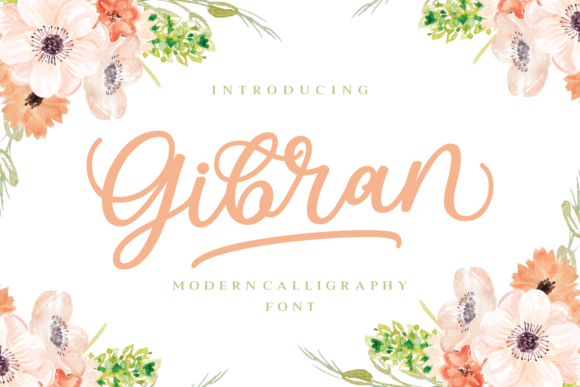
Welcome, typographers and design enthusiasts! Prepare to be captivated by the exquisite charm of "Gibran", a modern calligraphy font that will elevate your creations to new heights. Gracefully designed by Keithzo (7NTypes), Gibran exudes a captivating combination of elegance and readability, making it the perfect choice for adding a sophisticated touch to your projects.
Unlike ordinary fonts, Gibran's meticulously crafted letters possess a captivating rhythm that dances across the page, demanding attention and igniting inspiration. Its delicate curves and subtle flourishes evoke a sense of timeless beauty, while its clean lines ensure readability even at smaller sizes.
But Gibran's allure extends beyond its aesthetic appeal. This font is a versatile chameleon, effortlessly adapting to a myriad of design styles. Whether you seek to craft elegant invitations, design captivating social media graphics, or create stunning Cricut projects, Gibran's versatility will empower you to express your creativity in limitless ways.
One of Gibran's most captivating features is its enchanting swashes, delicate embellishments that add a touch of feminine flair to your designs. These swashes gracefully extend from certain letters, creating an intricate and eye-catching effect that will leave a lasting impression.
With Gibran, you'll not only enhance the visual appeal of your projects but also evoke emotions and create connections. Its elegant lines convey a sense of sophistication and grace, while its playful swashes inject a touch of whimsy and charm. Whether you're designing for personal or professional purposes, Gibran's ability to captivate and inspire will leave a lasting impact on your audience.
So, embrace the beauty of Gibran and unlock the endless possibilities it holds for your creative endeavors. Let its exquisite charm elevate your designs, captivate your audience, and inspire you to create masterpieces that resonate with beauty and grace.